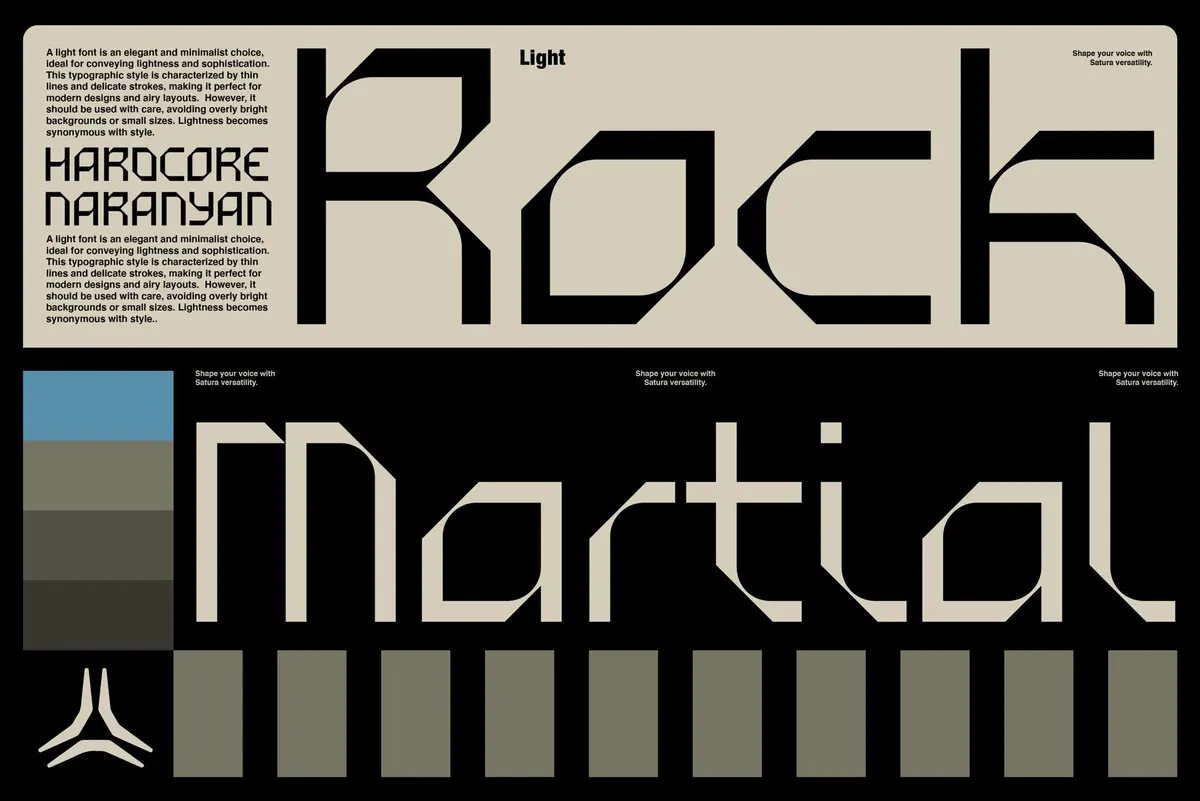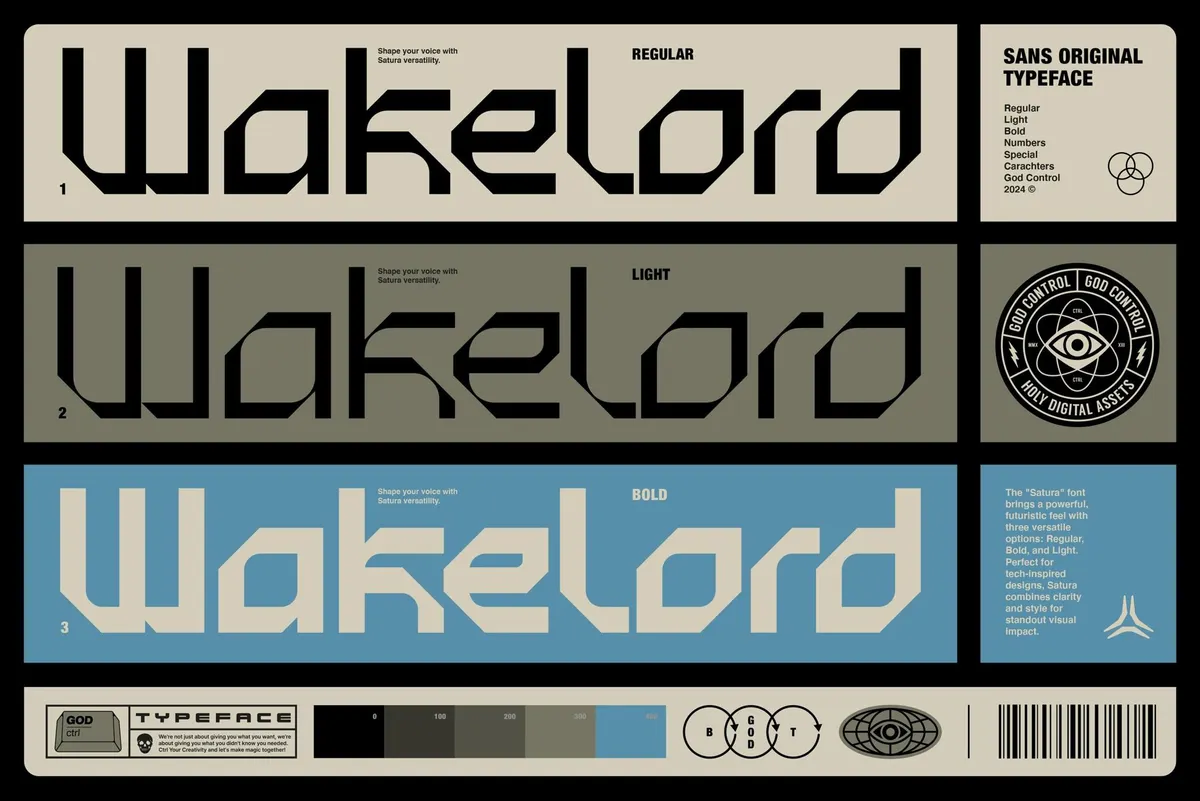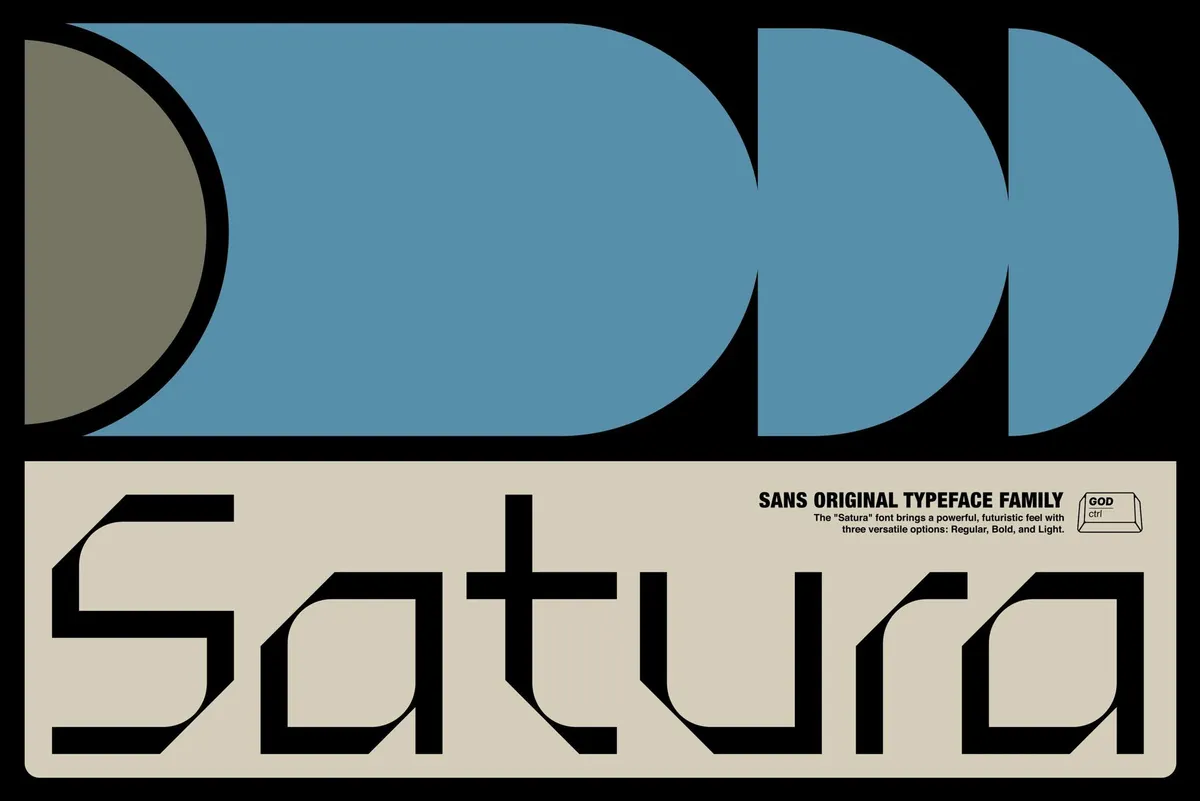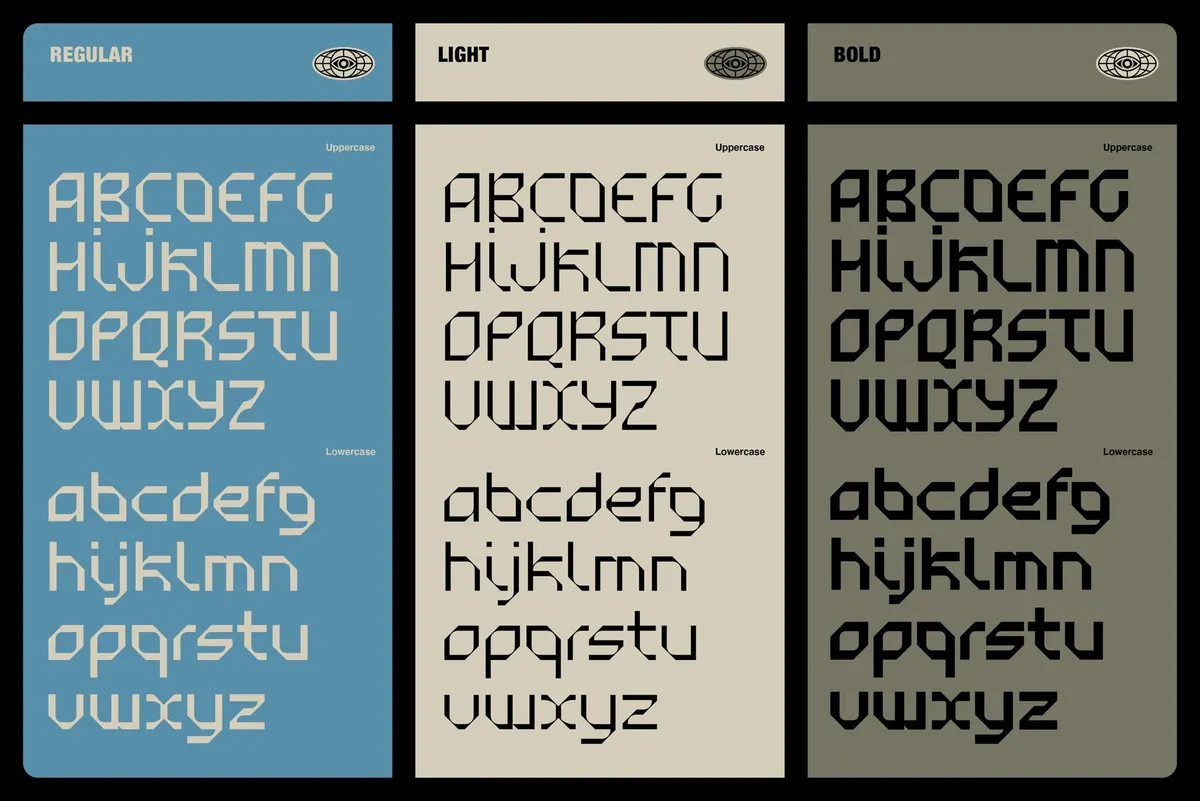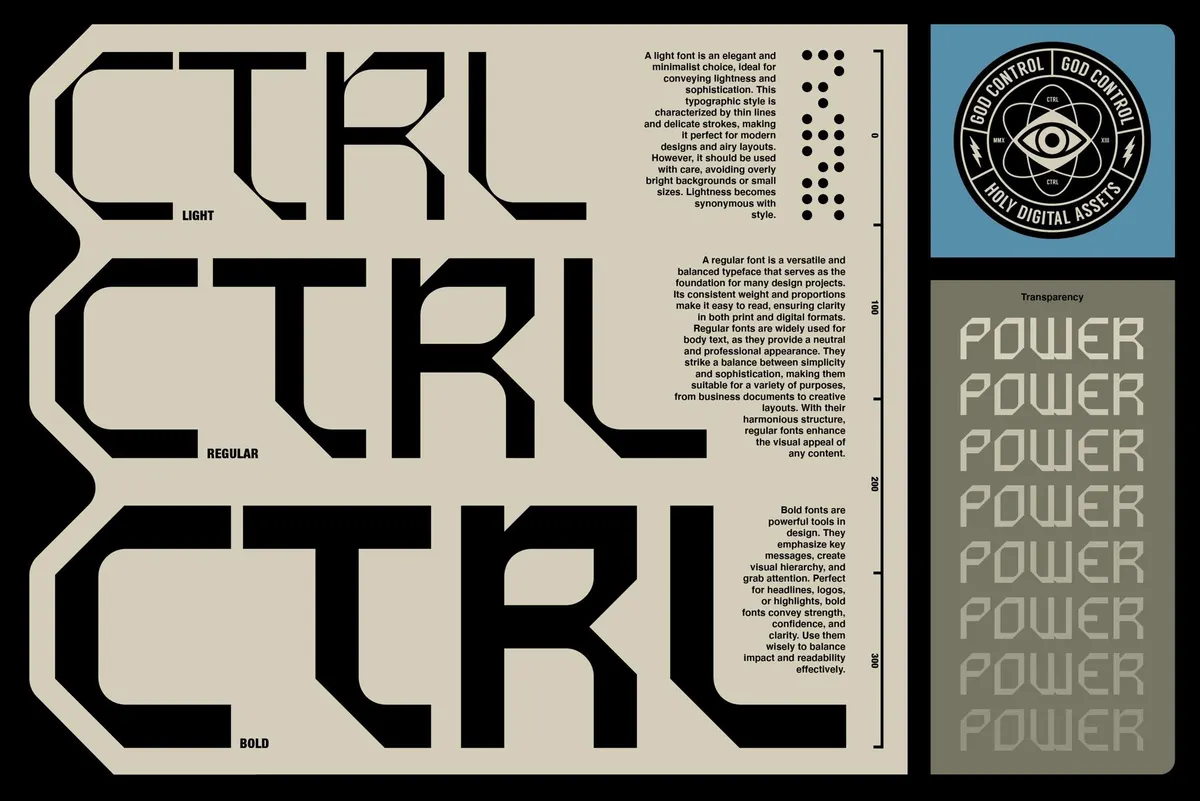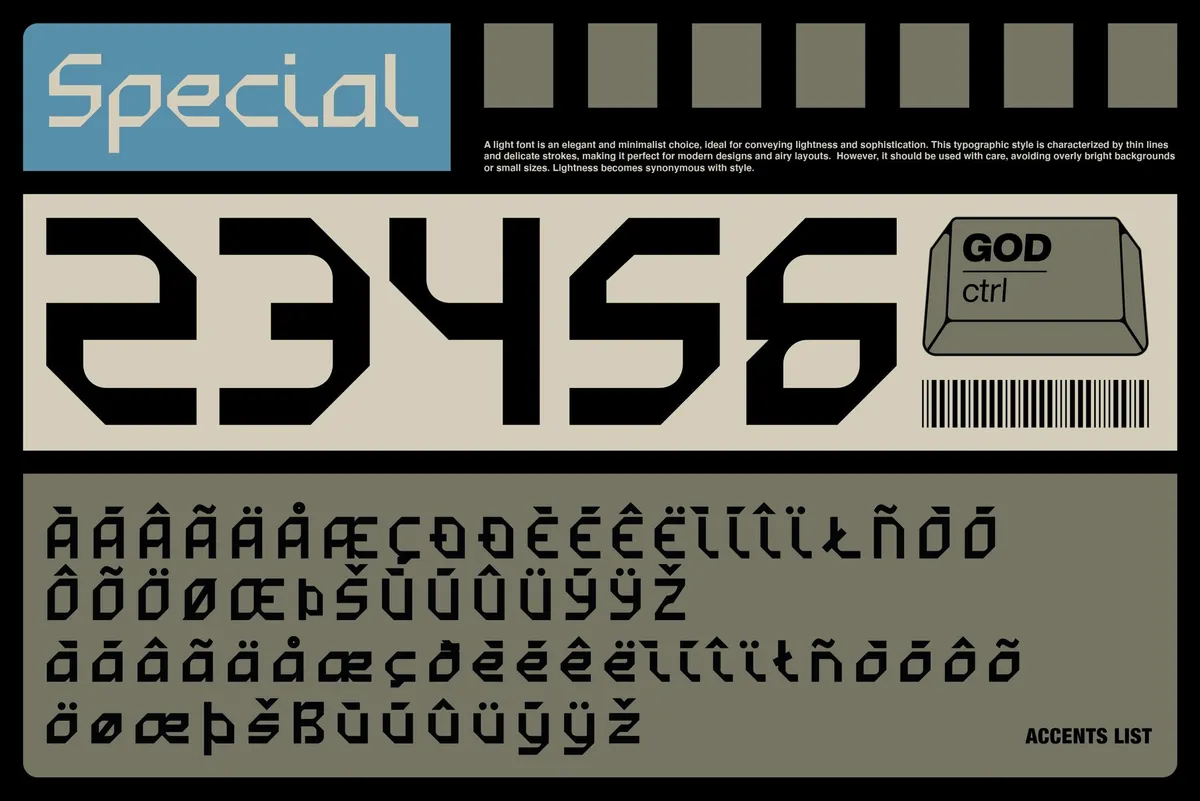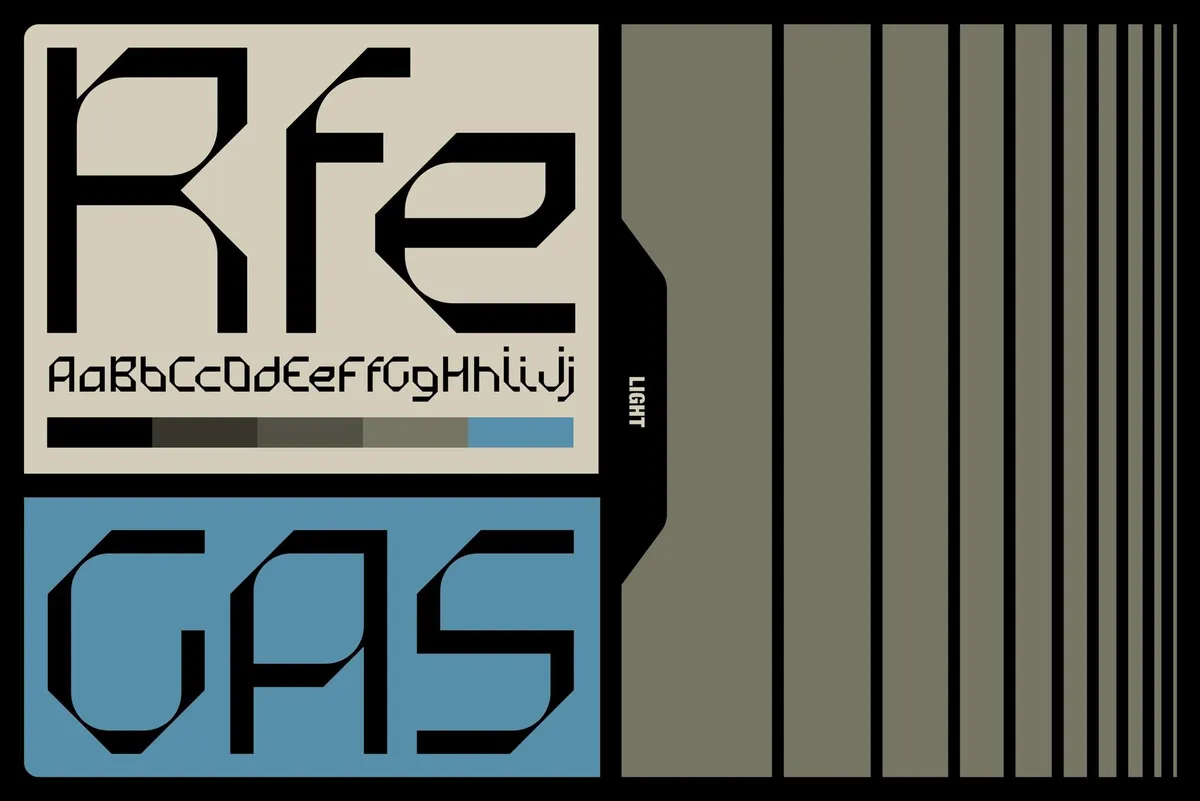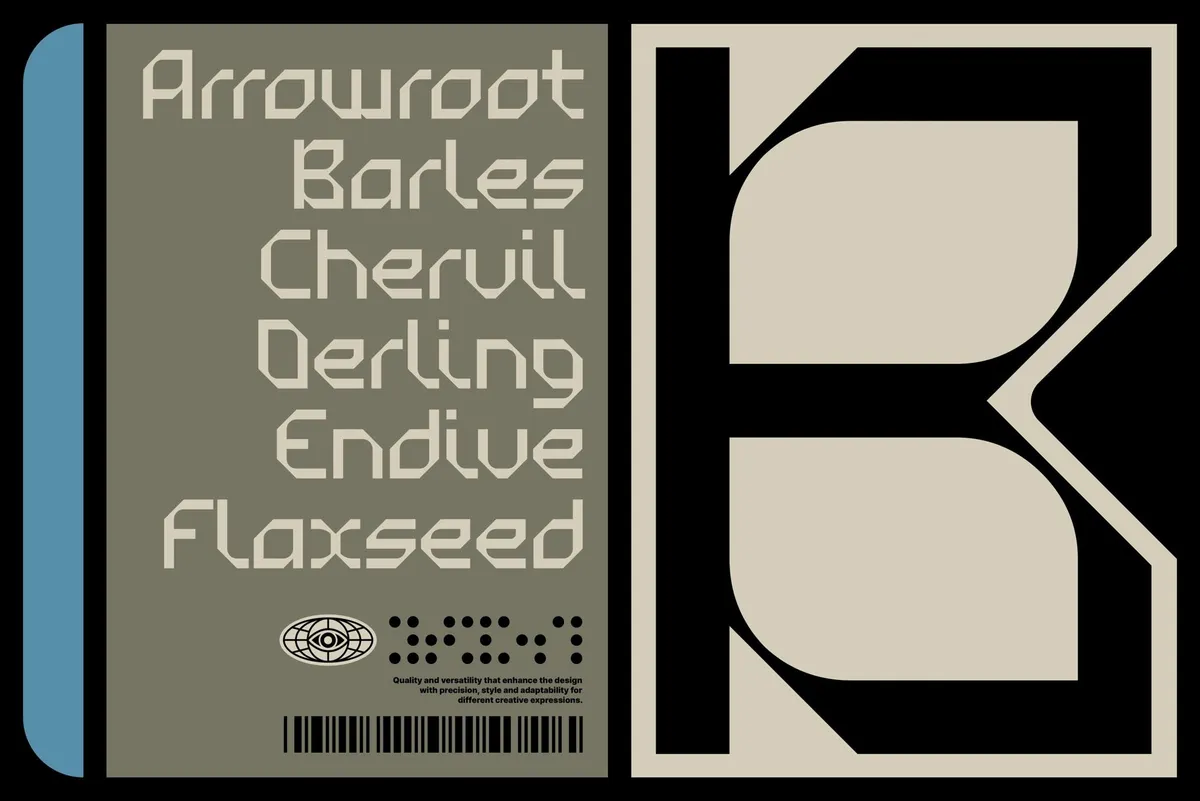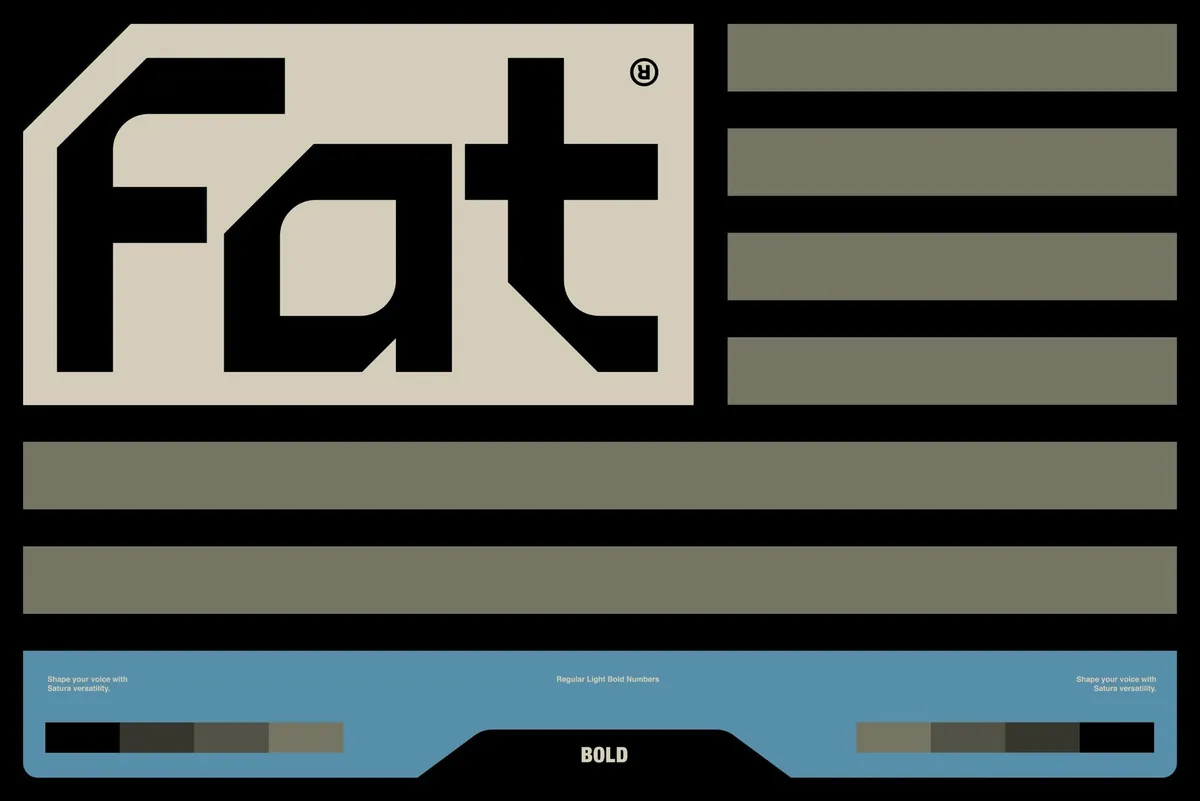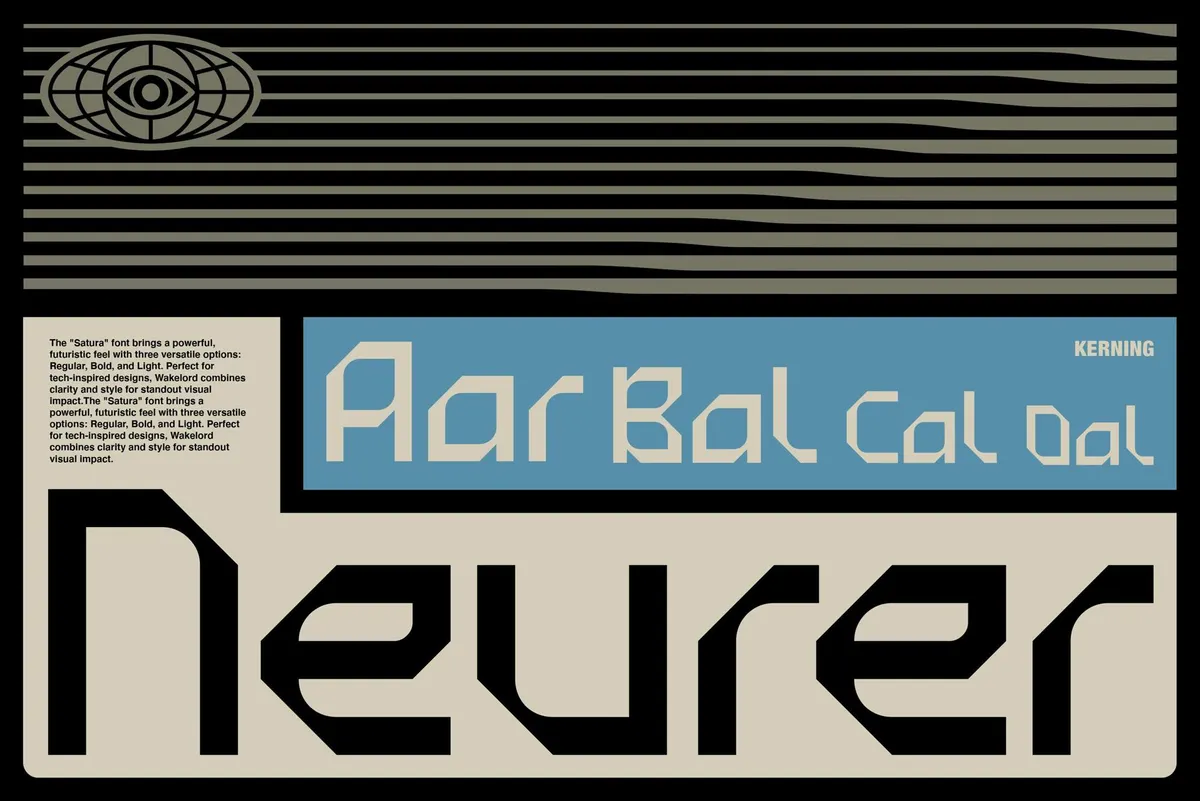
Satura Display Typeface Family
Welcome to the future — as seen from the drafting table of a 1960s engineer. Satura draws from the early days of techno-optimism, when Bauhaus ideals met space-age ambition and the world imagined machines with soul. With its industrial curves and geometric rigor, this typeface feels like it belongs on blueprints, control panels, or the cover of a Cold War-era tech manual predicting lunar colonies by 1984.
Every character in Satura is a study in balance: sharp, utilitarian forms softened by subtle modulation — like mid-century aluminum housing softened by wear. The three weights — light, regular, and bold — echo the obsession with modularity and precision. Perfect for projects channeling vintage futurism, sci-fi nostalgia, or anything caught between brutalist grids and analog dreams. The full character set, complete with numerals, punctuation, and special characters, is ready to serve — just add imagination (and maybe a slide rule).